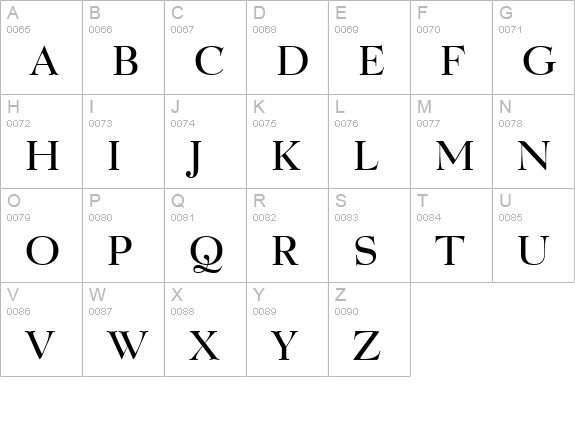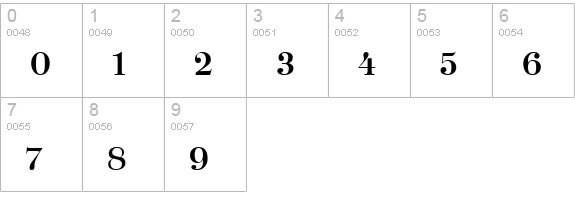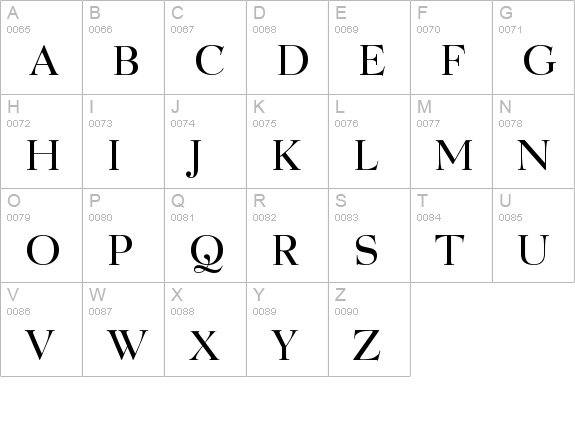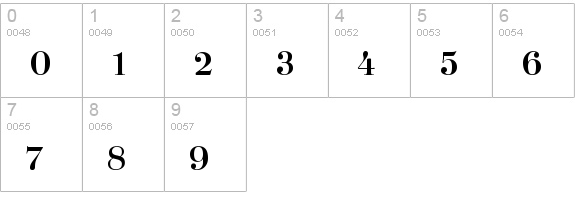
QuartierDemiBold Font Details
QuartierDemiBold is a sleek and modern font that exudes confidence and sophistication. Its bold and eye-catching appearance makes it perfect for headlines, titles, and other attention-grabbing design elements. The strong, clean lines of QuartierDemiBold give it a professional and polished look, making it a versatile choice for a wide range of design projects. This stylish font is available for free download at FontsMarket.com, where you can easily access and use it in your creative endeavors. Whether you're designing a poster, creating a logo, or crafting a website, QuartierDemiBold is sure to make a statement and leave a lasting impression on your audience. With its contemporary aesthetic and timeless appeal, QuartierDemiBold is a must-have font for any designer looking to elevate their work to the next level.